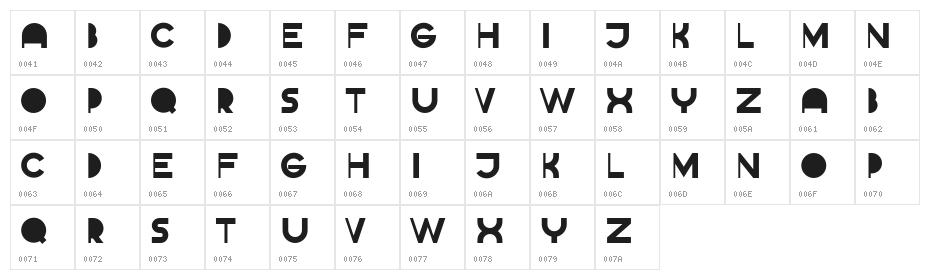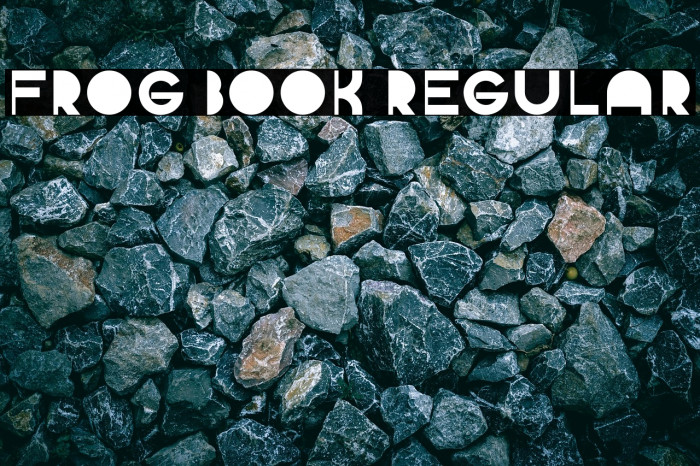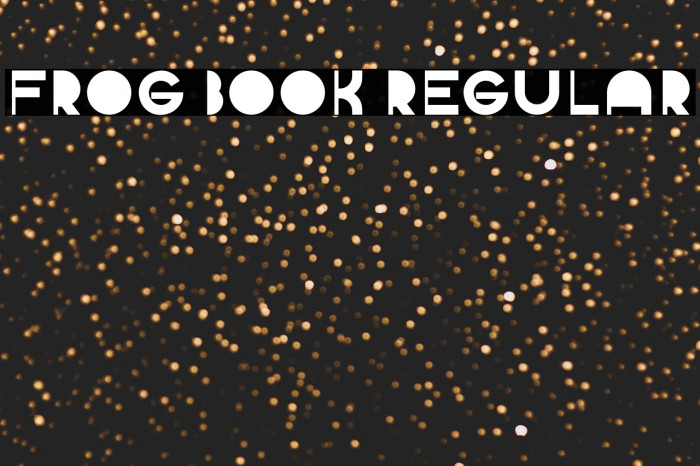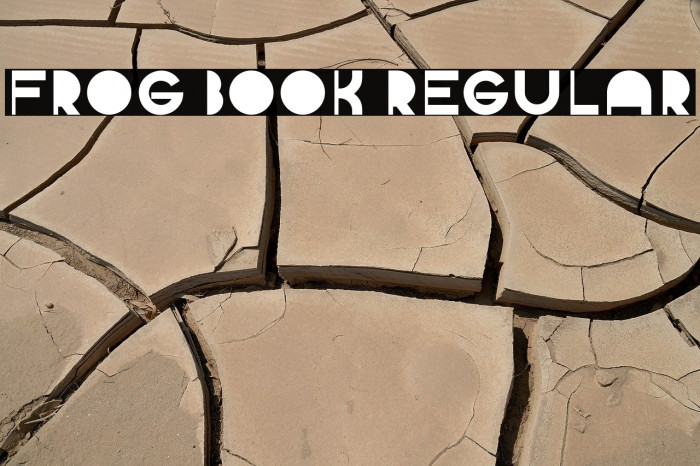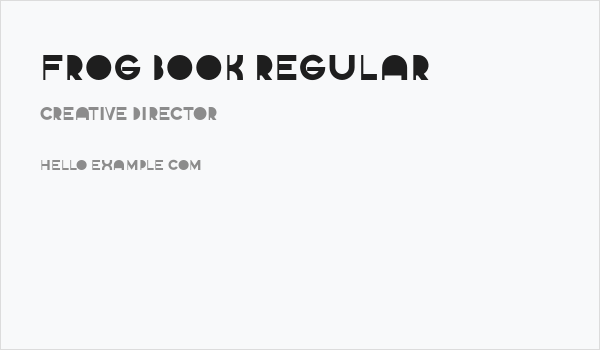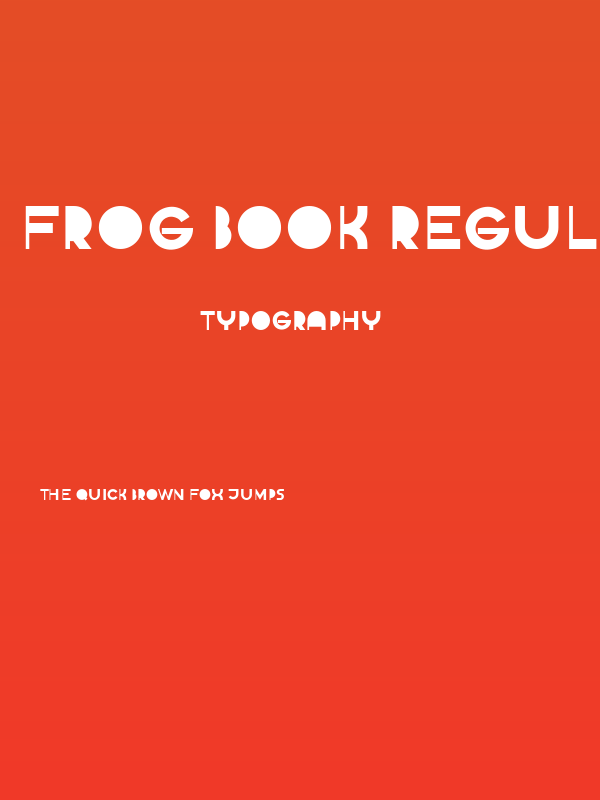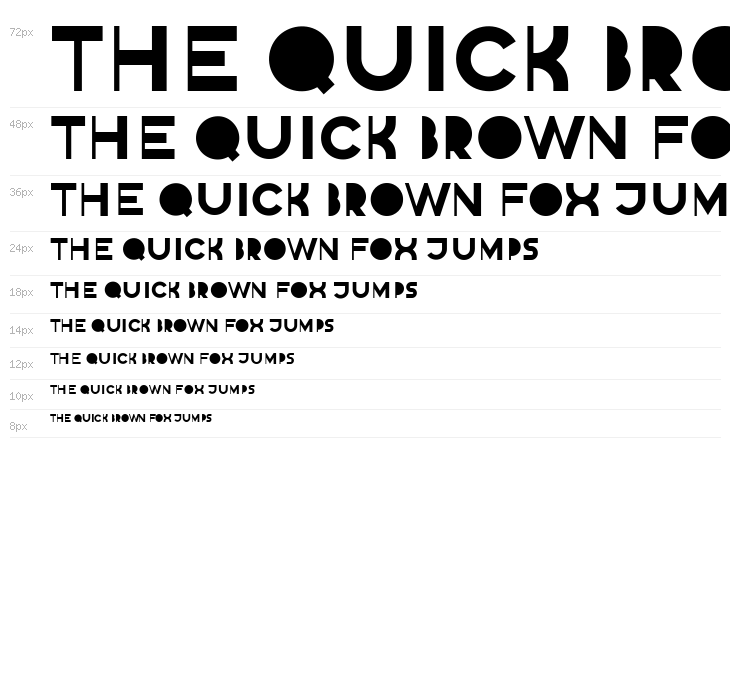
Frog Book Regular Font
Frog Book Regular Description
This font features a bold and geometric style with a modern twist. The characters are constructed with strong, straight lines and sharp angles, giving it a futuristic and dynamic appearance. The uppercase letters are particularly striking, with unique cutouts and shapes that add visual interest. The font maintains a consistent weight throughout, ensuring readability while still being eye-catching. Its distinct style makes it suitable for projects that require a contemporary and bold aesthetic.
| Proposed Projects | Ideal for branding, posters, headlines, and any design that requires a bold statement. |